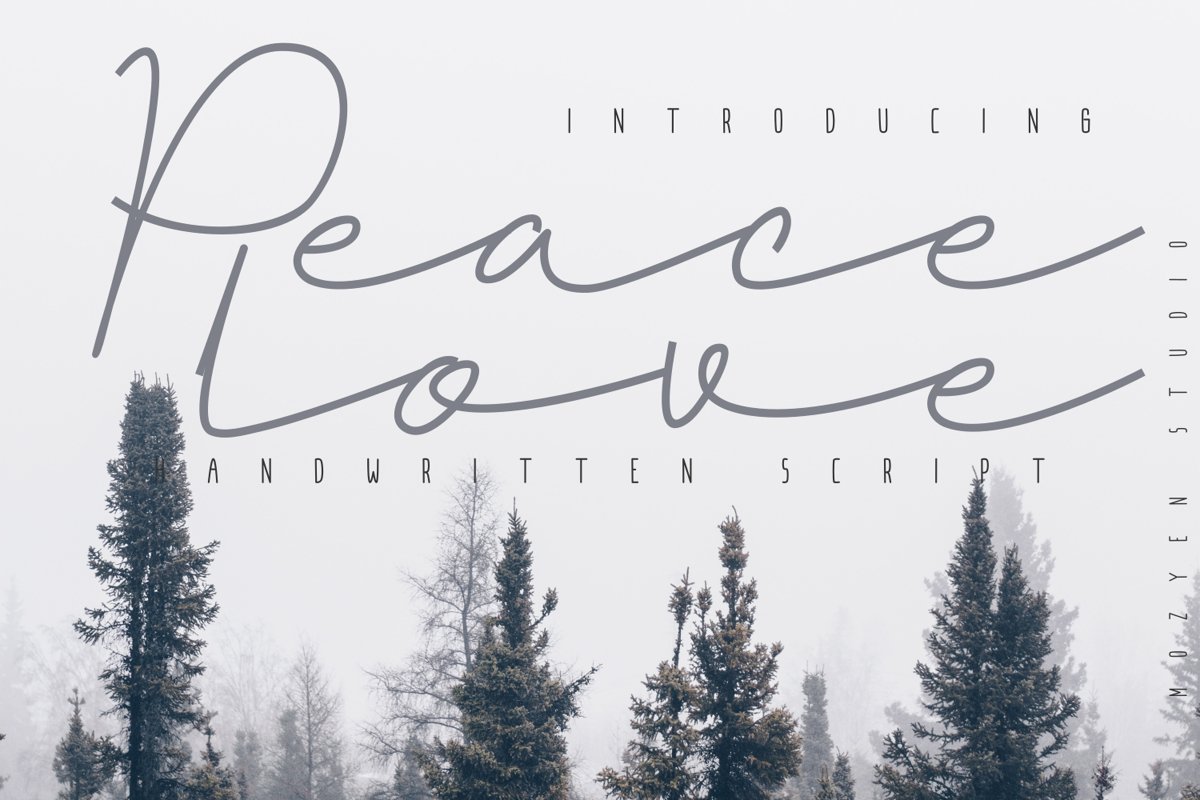
Happily Born Daughter of the Family Mozyen Studio. She is the “Peacelove” Handwrittten Script. “Peacelove” can accompany your design so that it looks
attractive and extraordinary. “Peacelove” Signature Font, you can use in
various designs such as weddings, beautiful words, t-shirt designs,
business cards, company logos and promotions. Thank you for your
interest in “Peacelove” Handwrittten Script. Include OTF, TTF, WOFF.